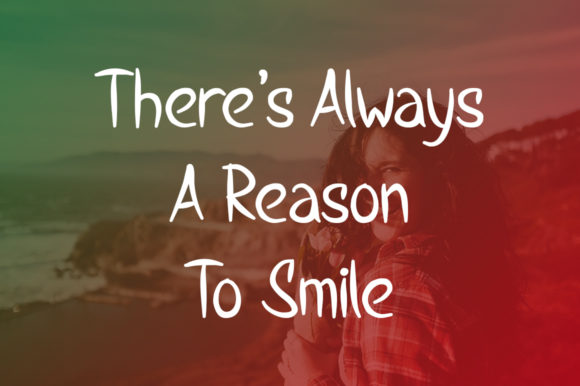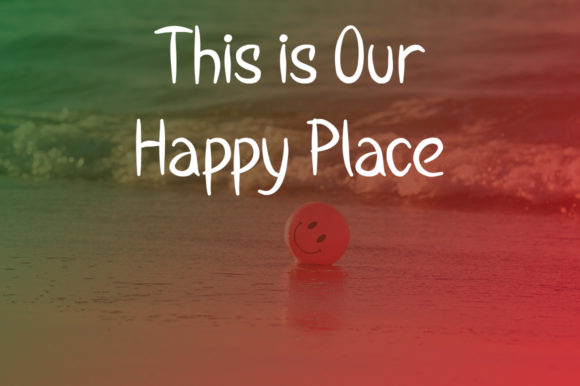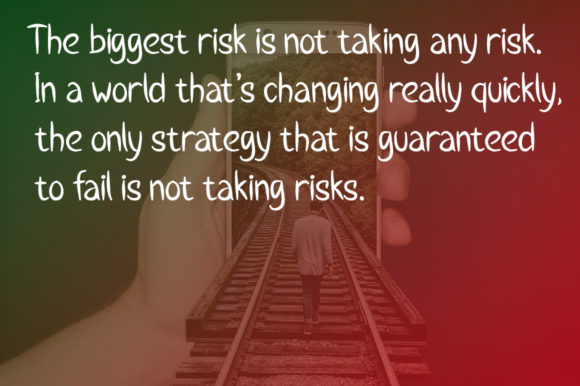
Introduction to Sirena Font
The Sirena is an amazing handwritten font.
It has a great readability and will add an unique touch to every design It can be used for logos, t-shirts, papers, print designs, website headers, photo frames, flyers, music covers, posters, image sliders and much more.
Key Features of Sirena Font
Why Choose Sirena Font?
Sirena Font offers exceptional quality and versatility, making it a valuable addition to your design toolkit. Whether you’re creating for personal projects or commercial use, Sirena Font delivers professional results.